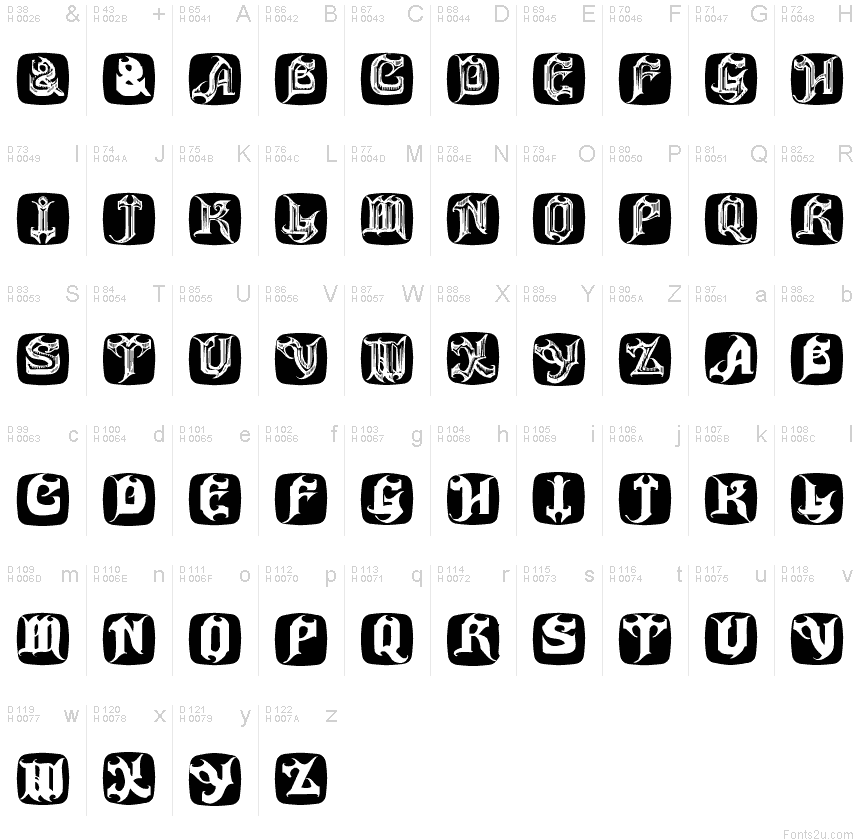
HauntedBricks
Haunted Bricks font by Manfred Klein is a free decorative display typeface that looks like chunky, inky tiles stamped with ghostly blackletter forms. Each letter sits inside a soft-edged black square, with white, flickering strokes that feel scratched and worn, like signage from an old carnival ride left to rot. The result is bold, legible, and just unsettling enough to grab attention at a glance.
Using Haunted Bricks, you can conjure moody Halloween posters, haunted house flyers, horror podcast covers, escape room branding, party invites, or retro spooky game titles. This free font works best at large sizes where the blocky silhouettes and distressed curves can really breathe; pair it with a clean sans serif for body copy so the ornate tiles stay center stage.